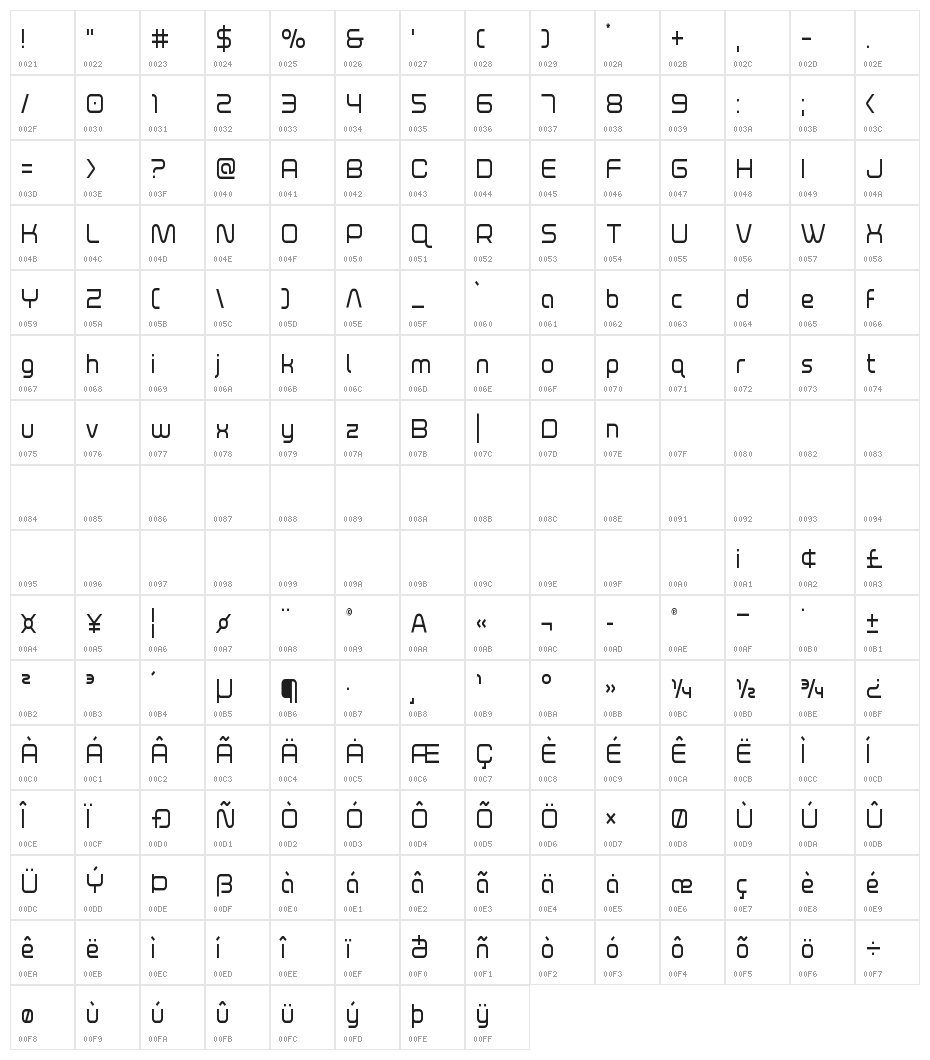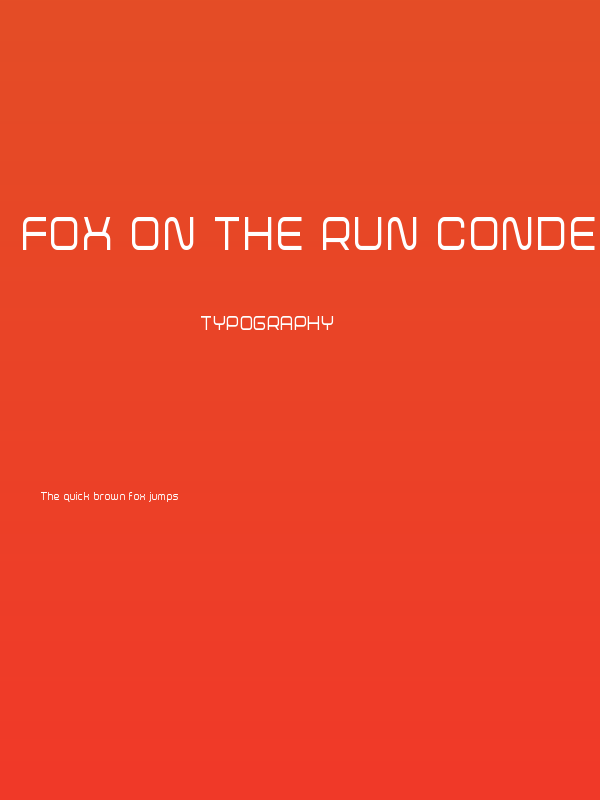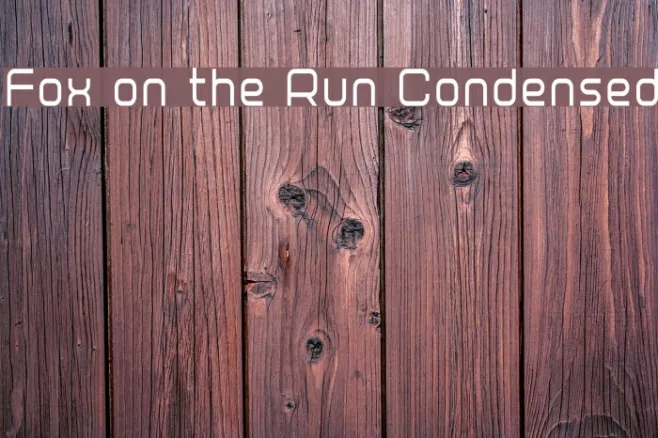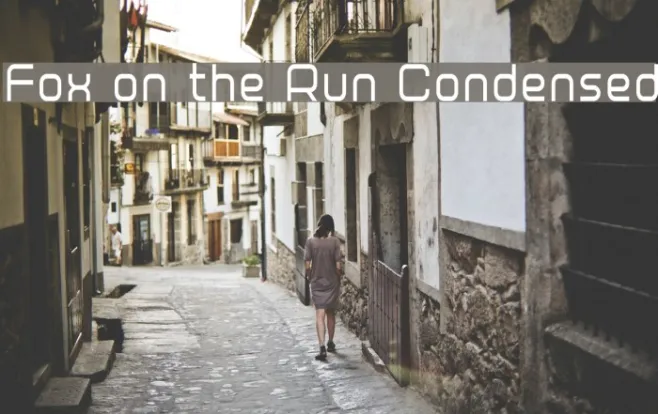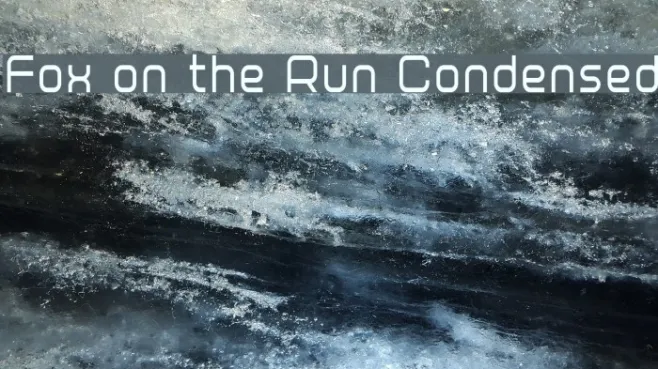
Fox on the Run Condensed Font
Fox on the Run Condensed Description
This font features a modern, geometric design with a condensed structure. The characters are clean and minimalistic, with rounded edges that give a soft yet professional appearance. The uppercase and lowercase letters maintain a consistent style, enhancing readability. The numerals and special characters are designed to match the overall aesthetic, ensuring uniformity across all text elements. This font is suitable for digital and print media, offering a contemporary look that is both stylish and functional.
| Use Case | Headlines, Logos, Digital interfaces |
| Proposed Projects | Ideal for tech branding, modern websites, app interfaces, and minimalist design projects. |